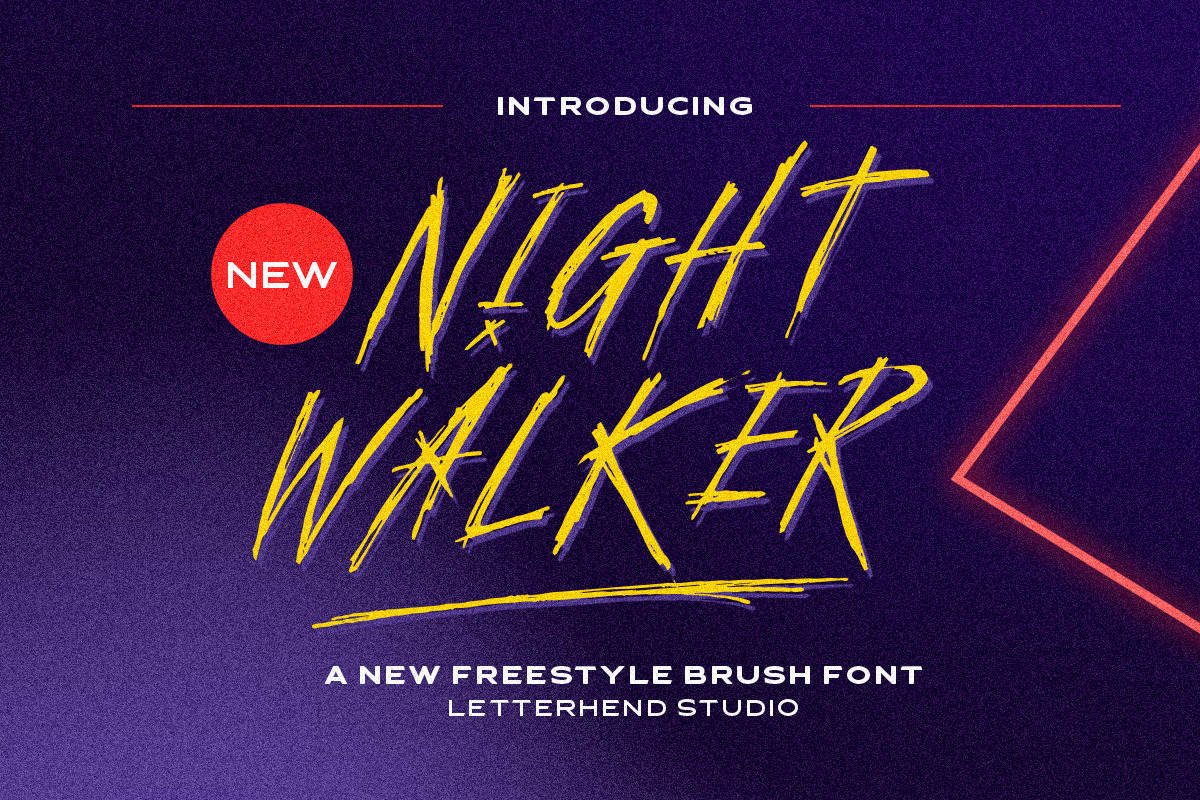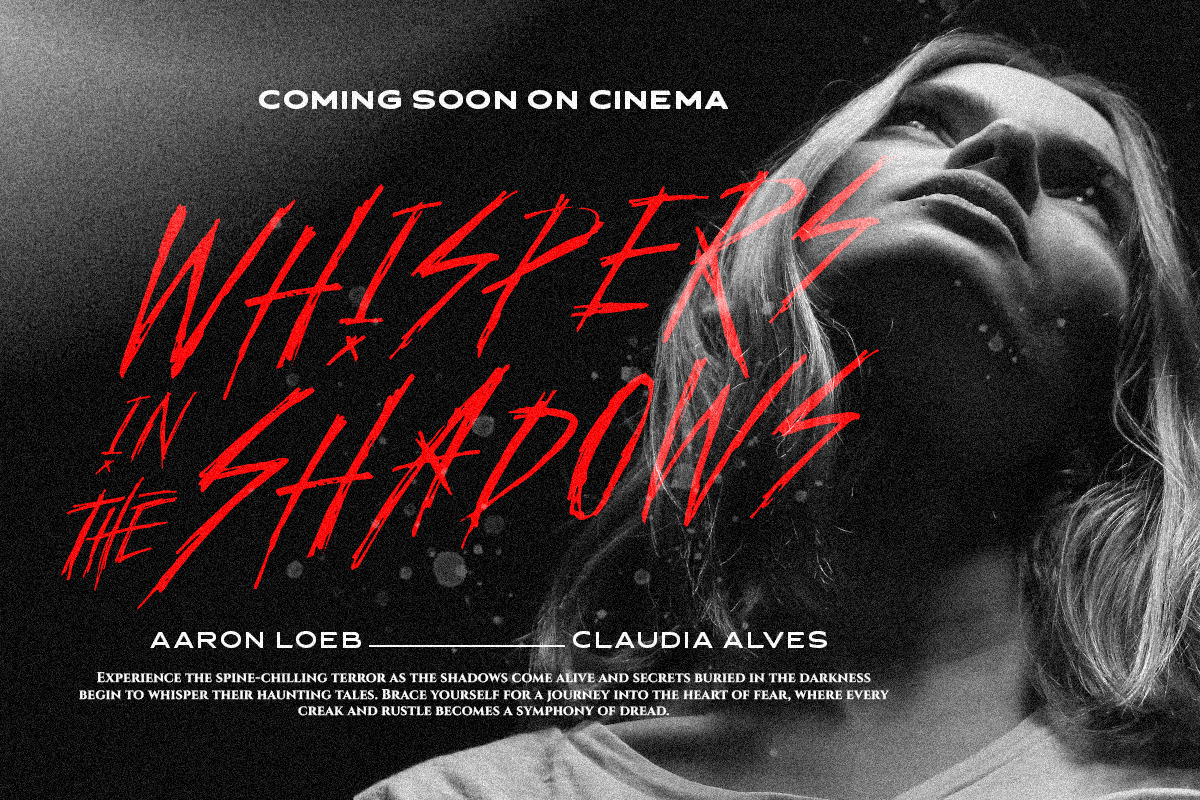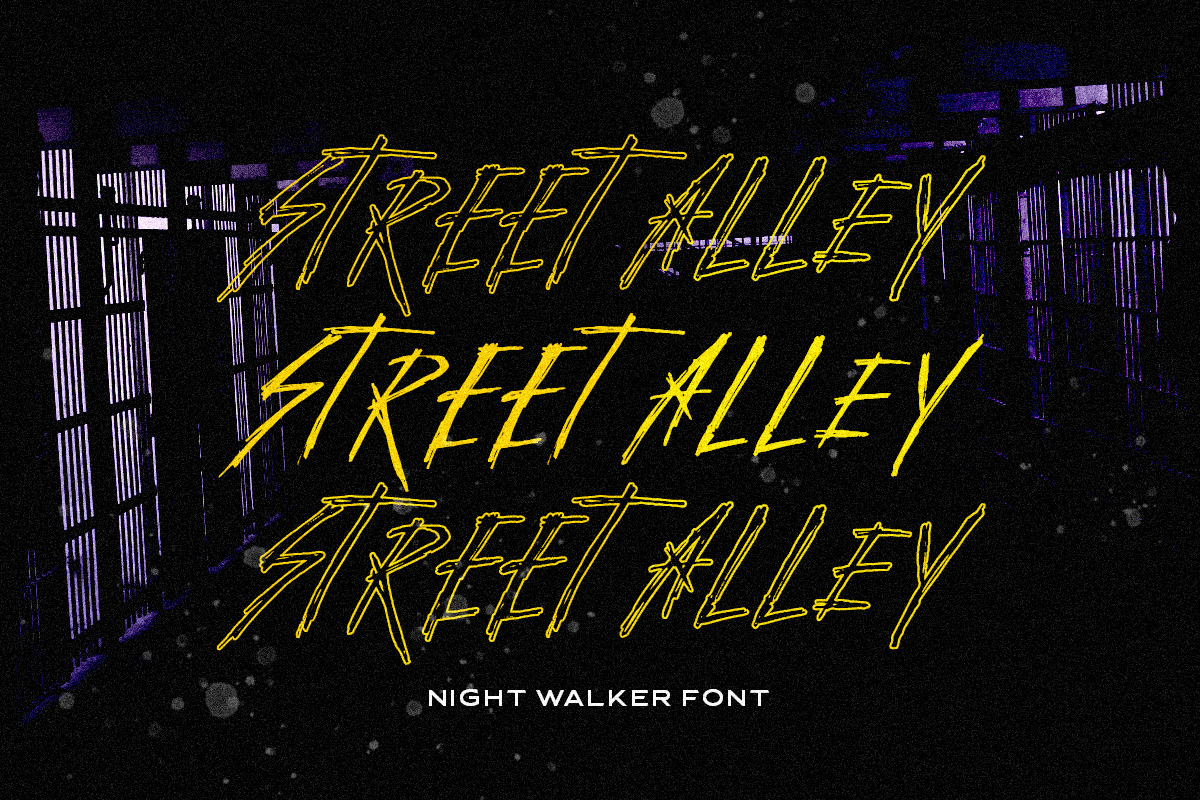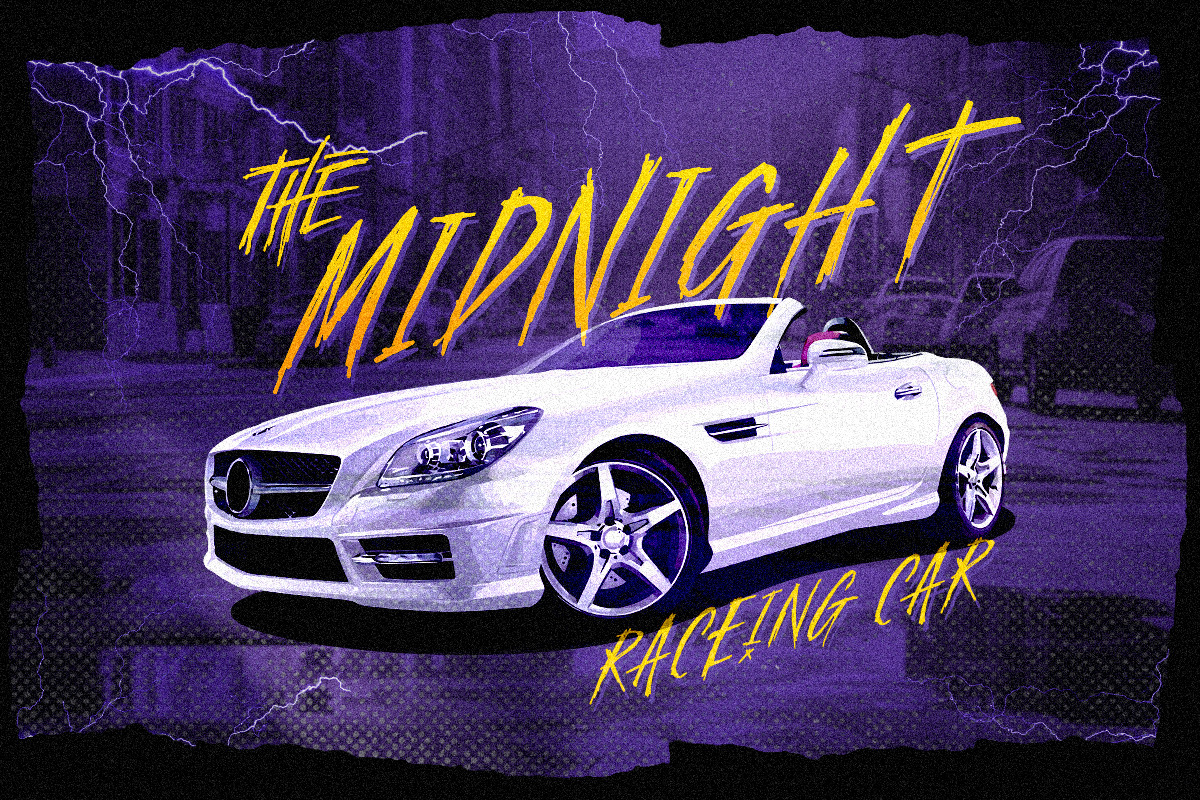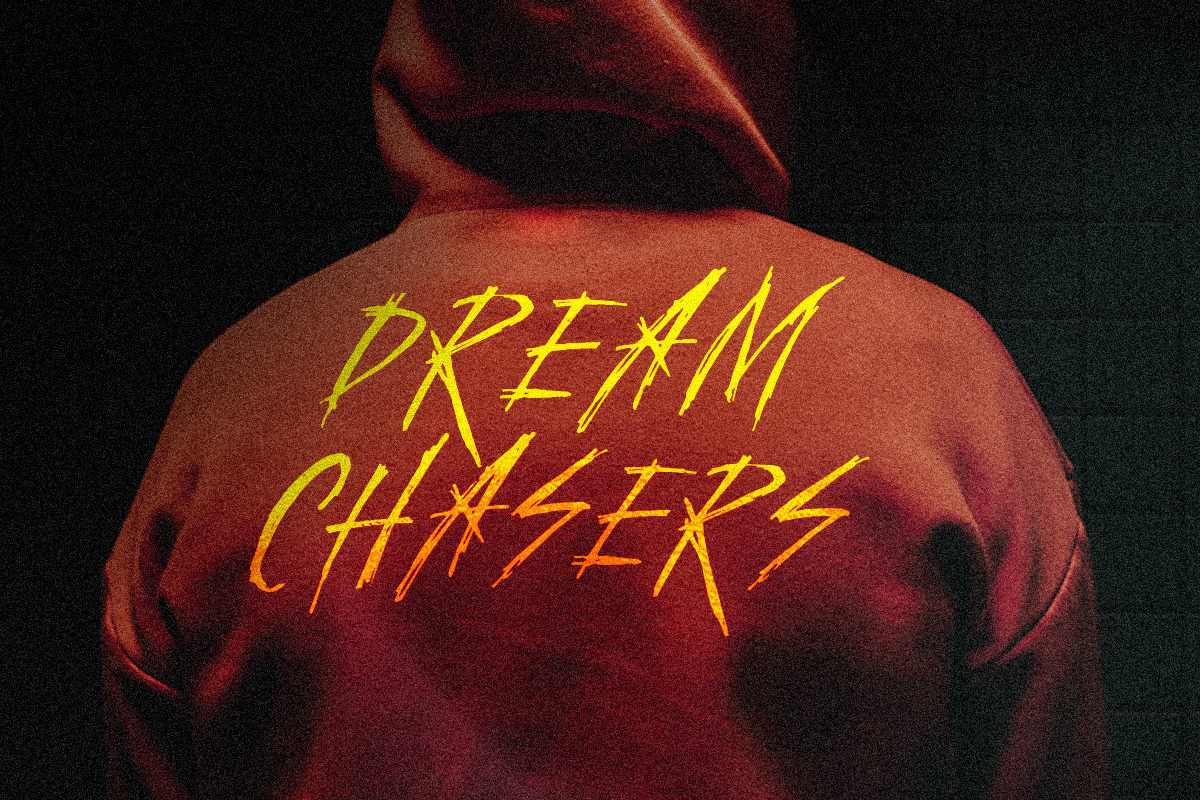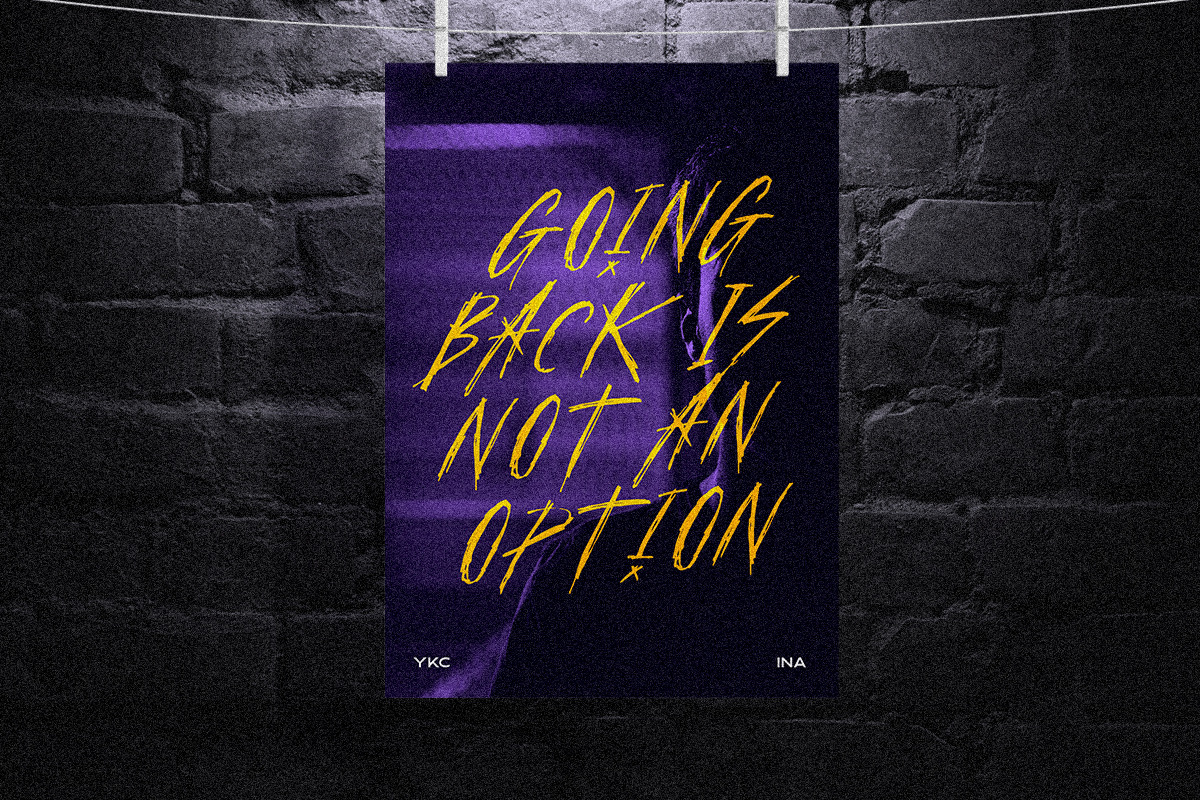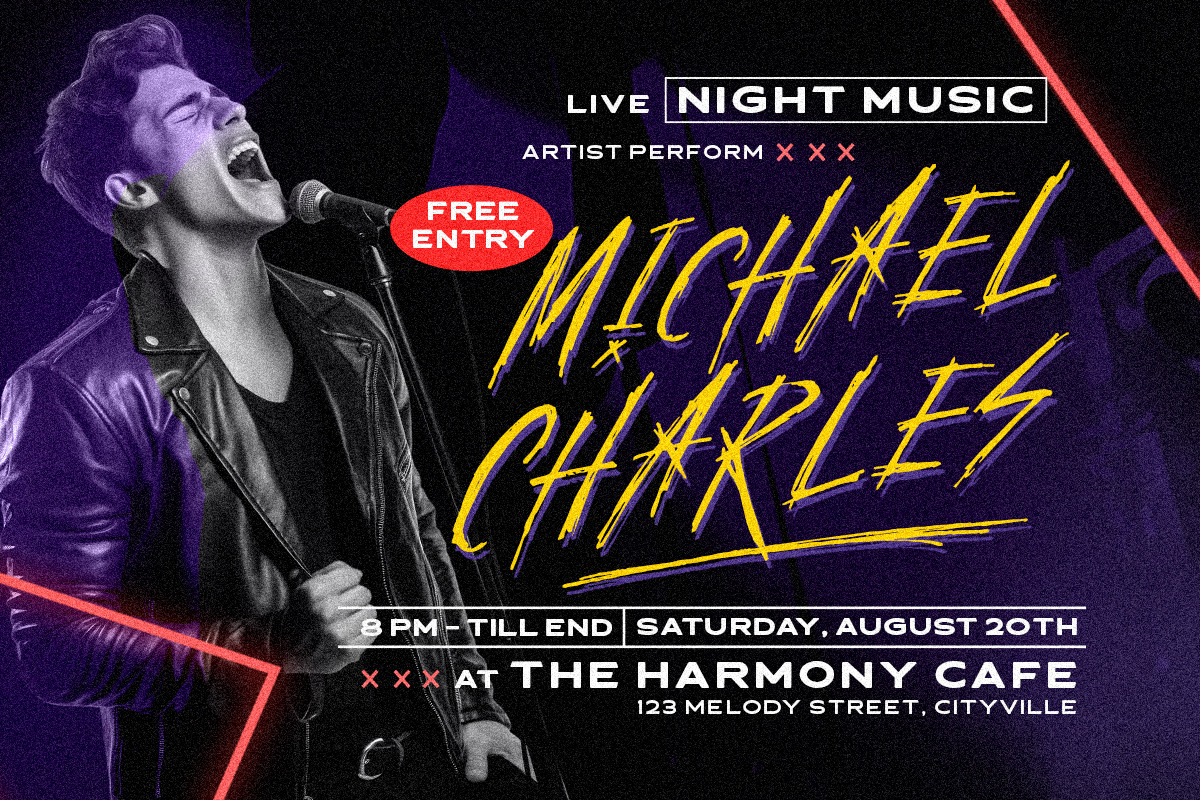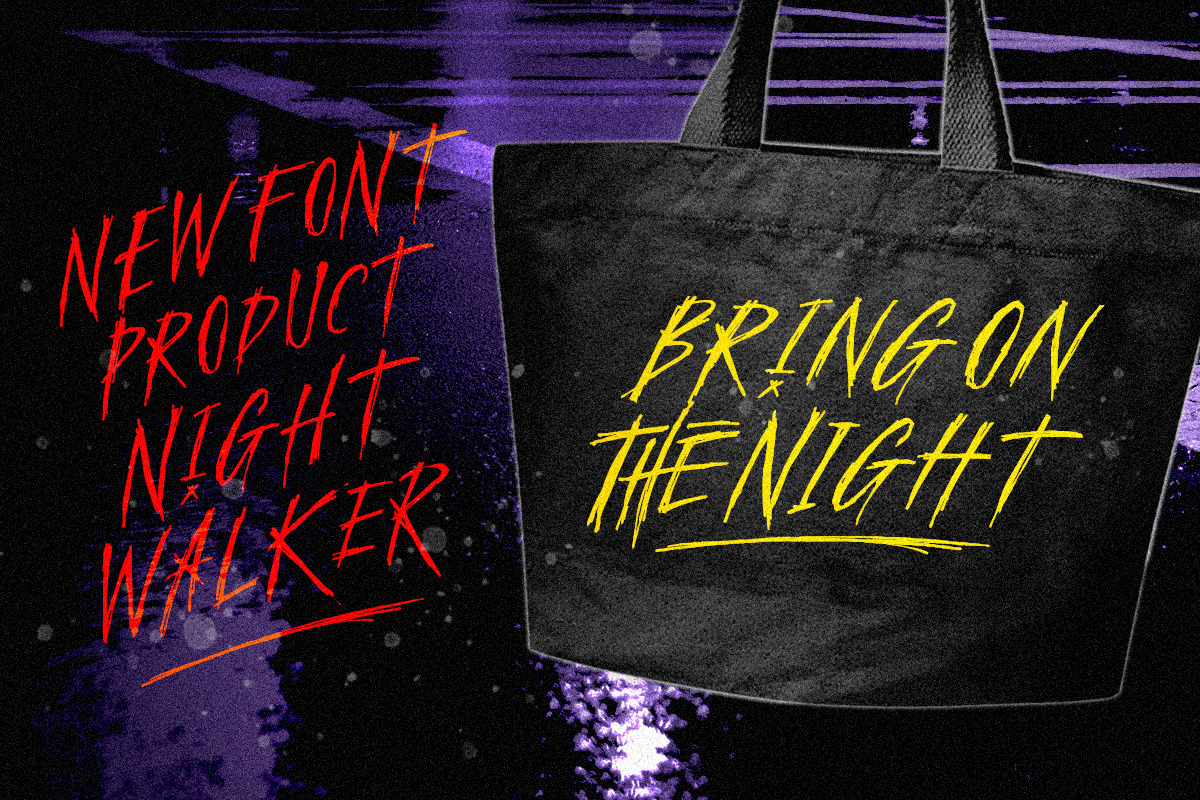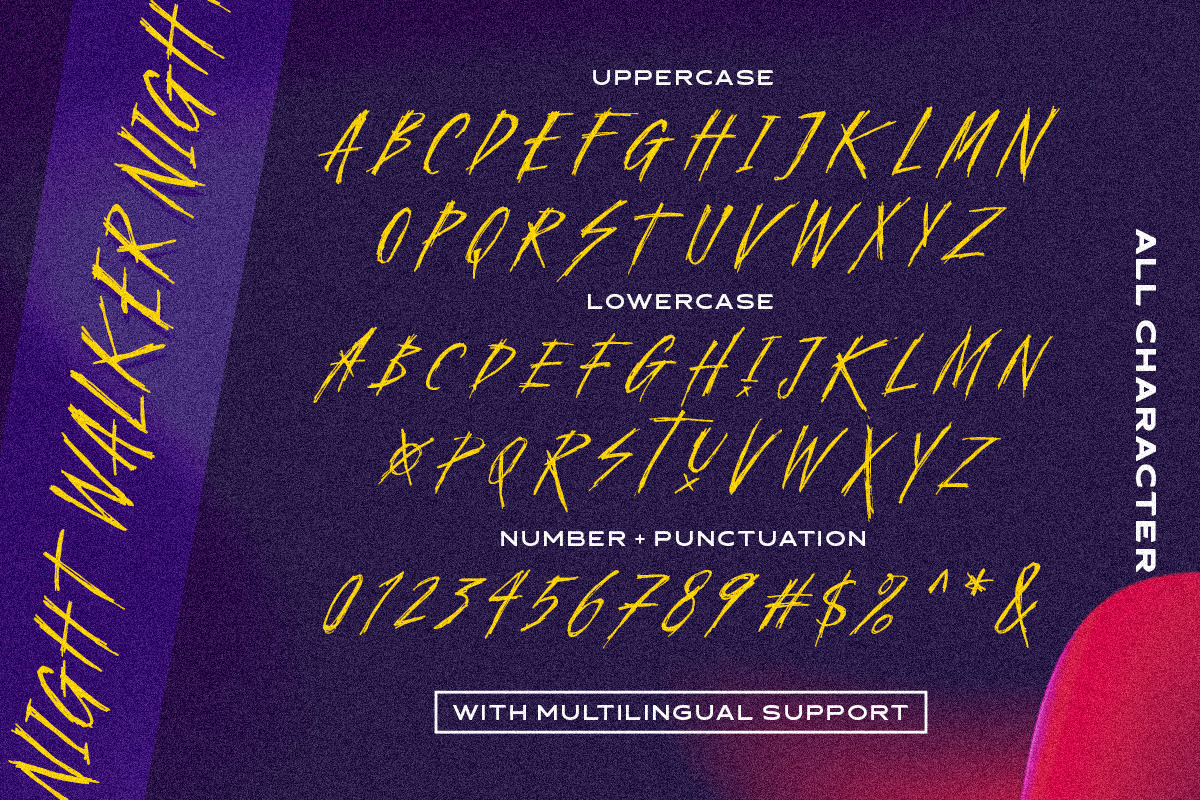
Night Walker - Freestyle Brush Font
Night Walker is a freestyle brush font, It's organic and hand-drawn appearance adds a touch authenticity to your designs, making it a perfect choice for projects that seek to stand out with freestyle display typeface.
This font perfectly made to be applied especially in logo, and the other various formal forms such as invitations, labels, logos, magazines, books, greeting / wedding cards, packaging, fashion, make up, stationery, novels, labels or any type of advertising purpose.